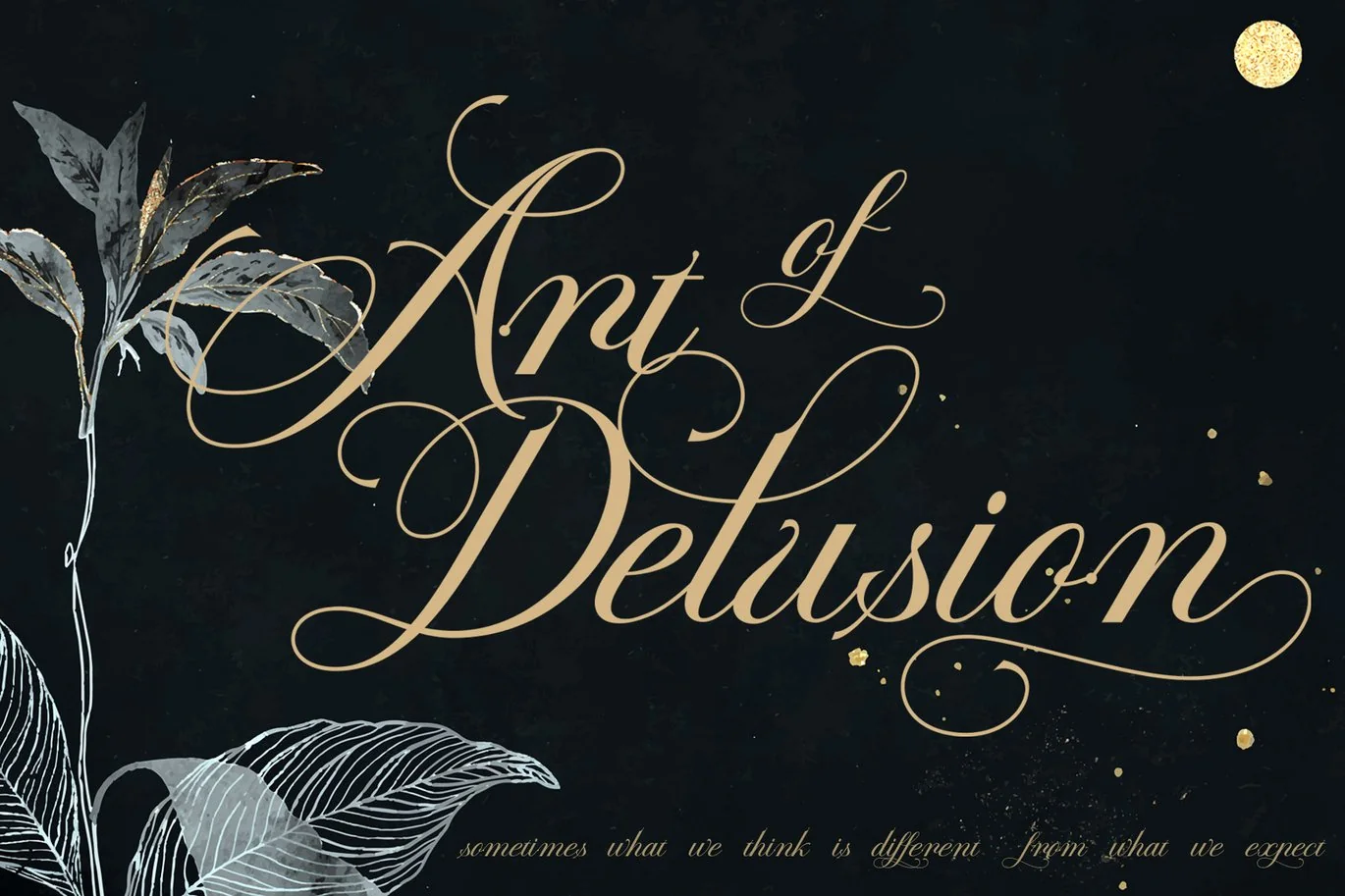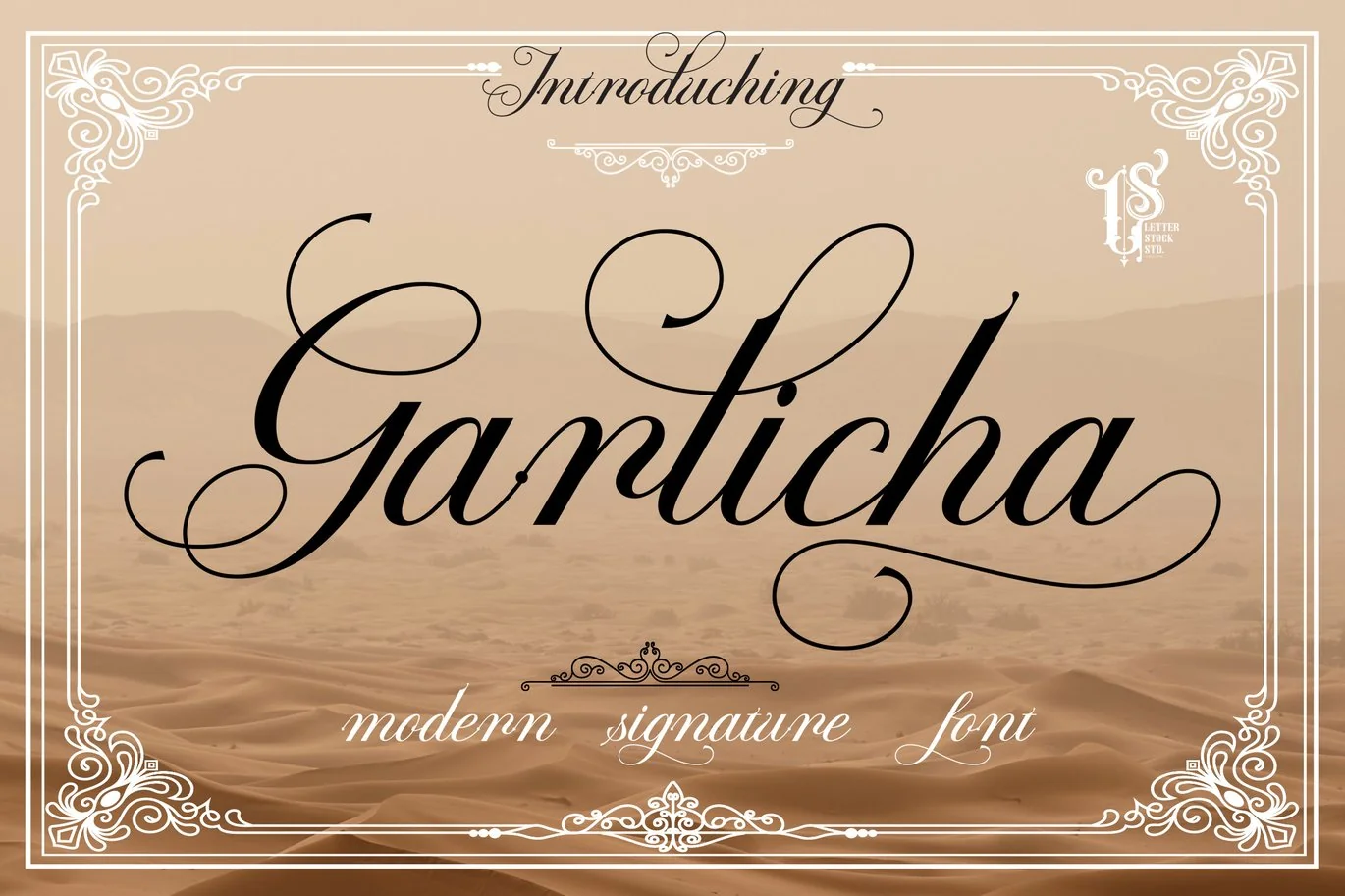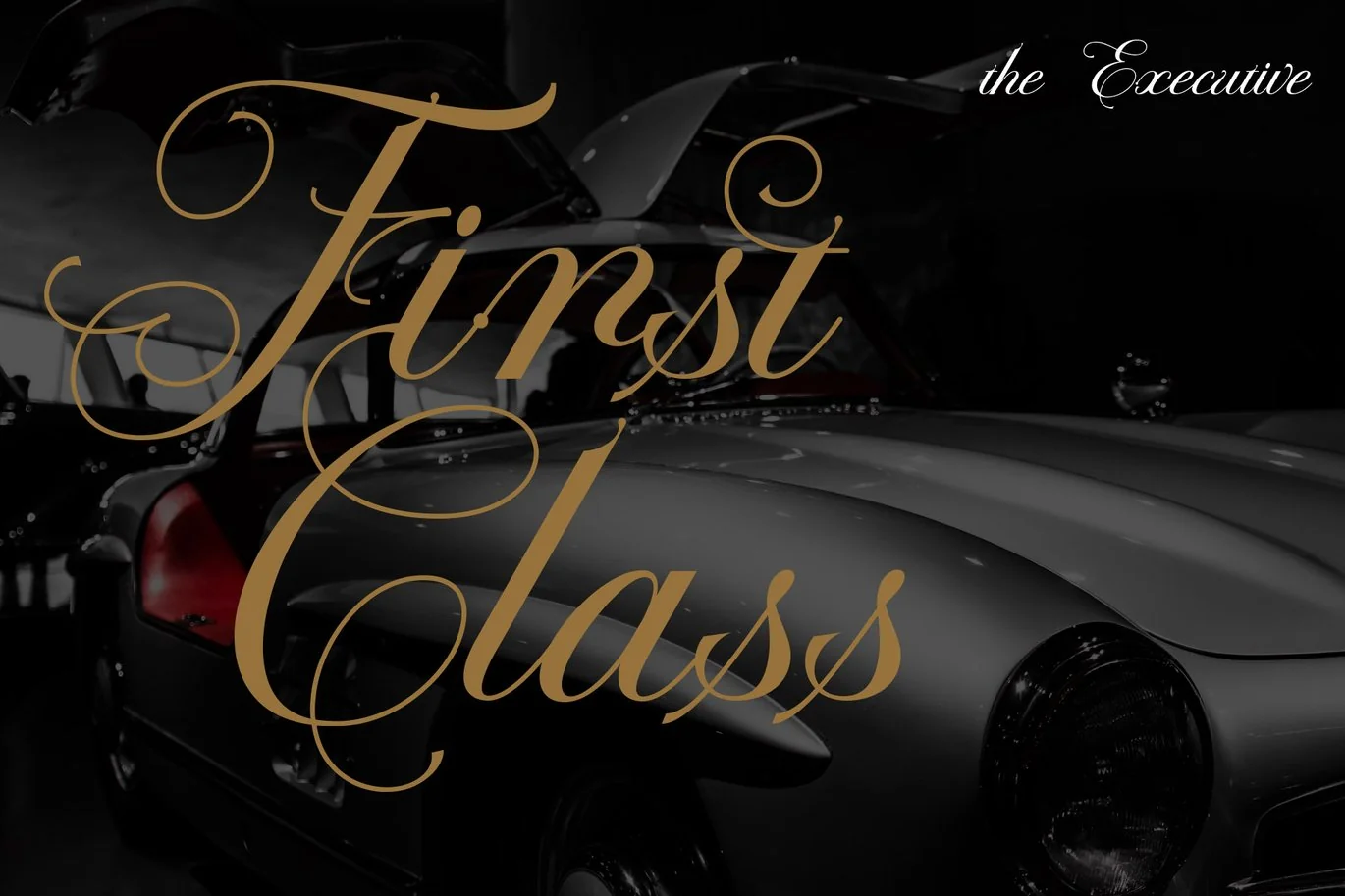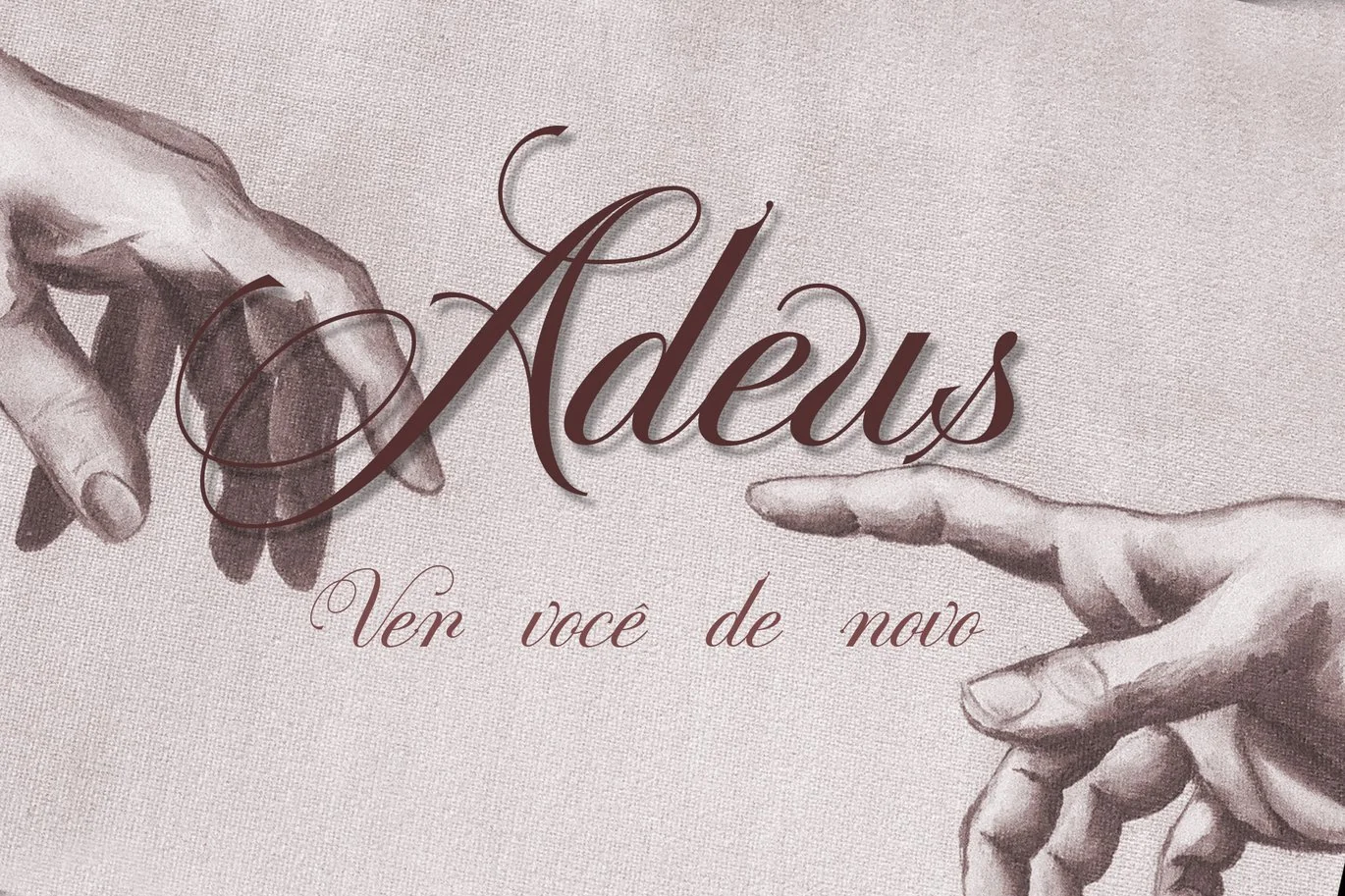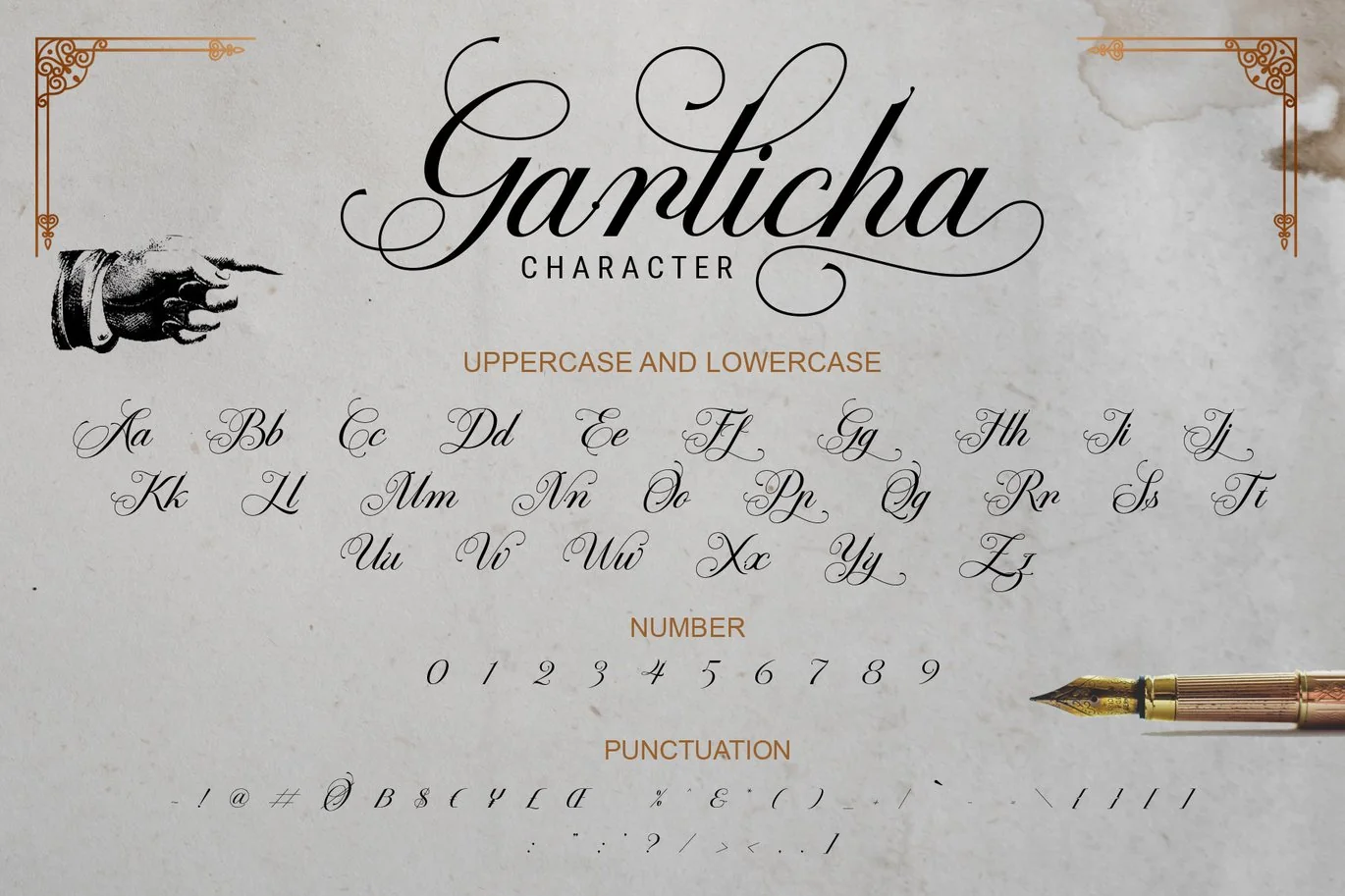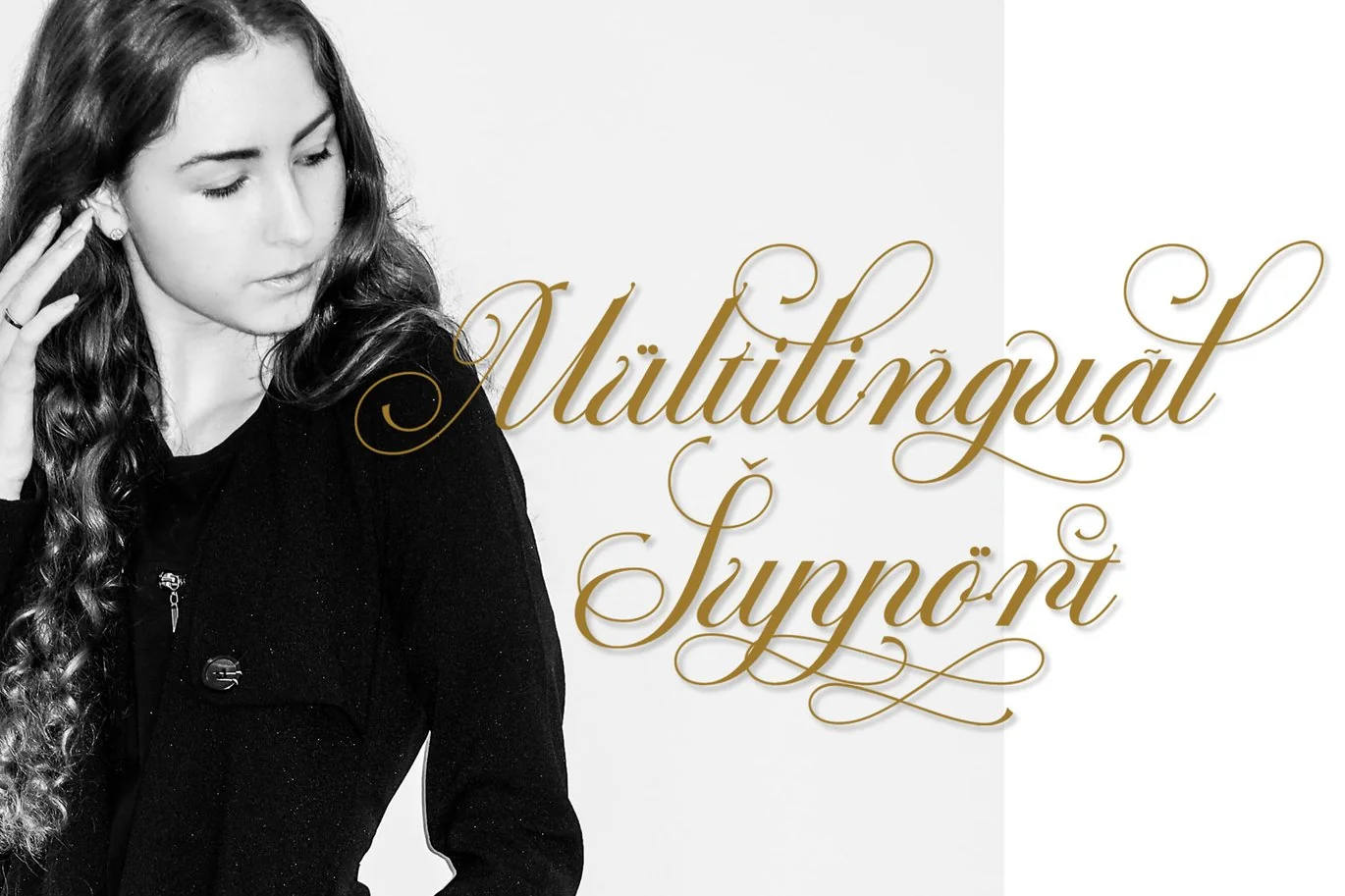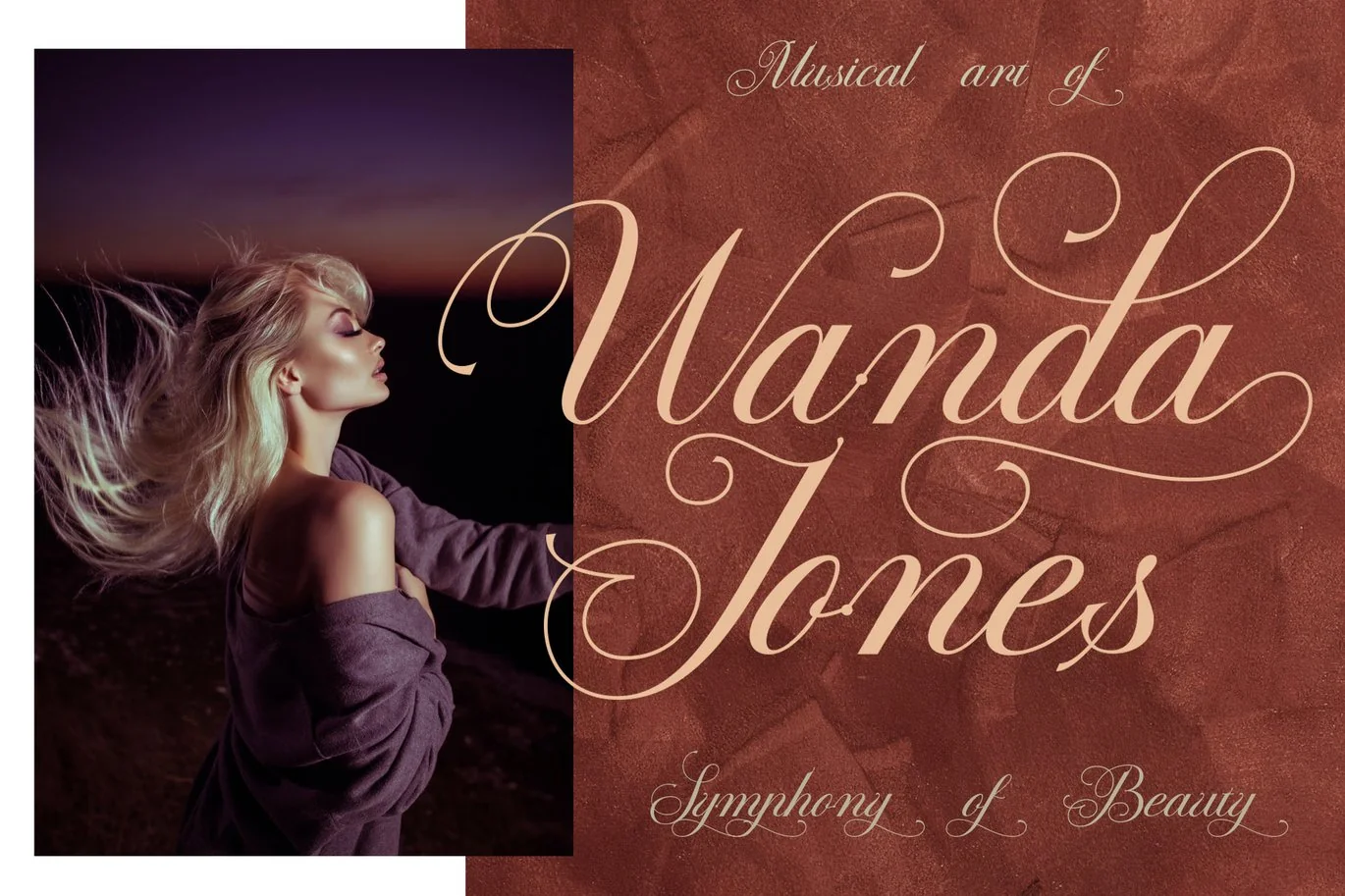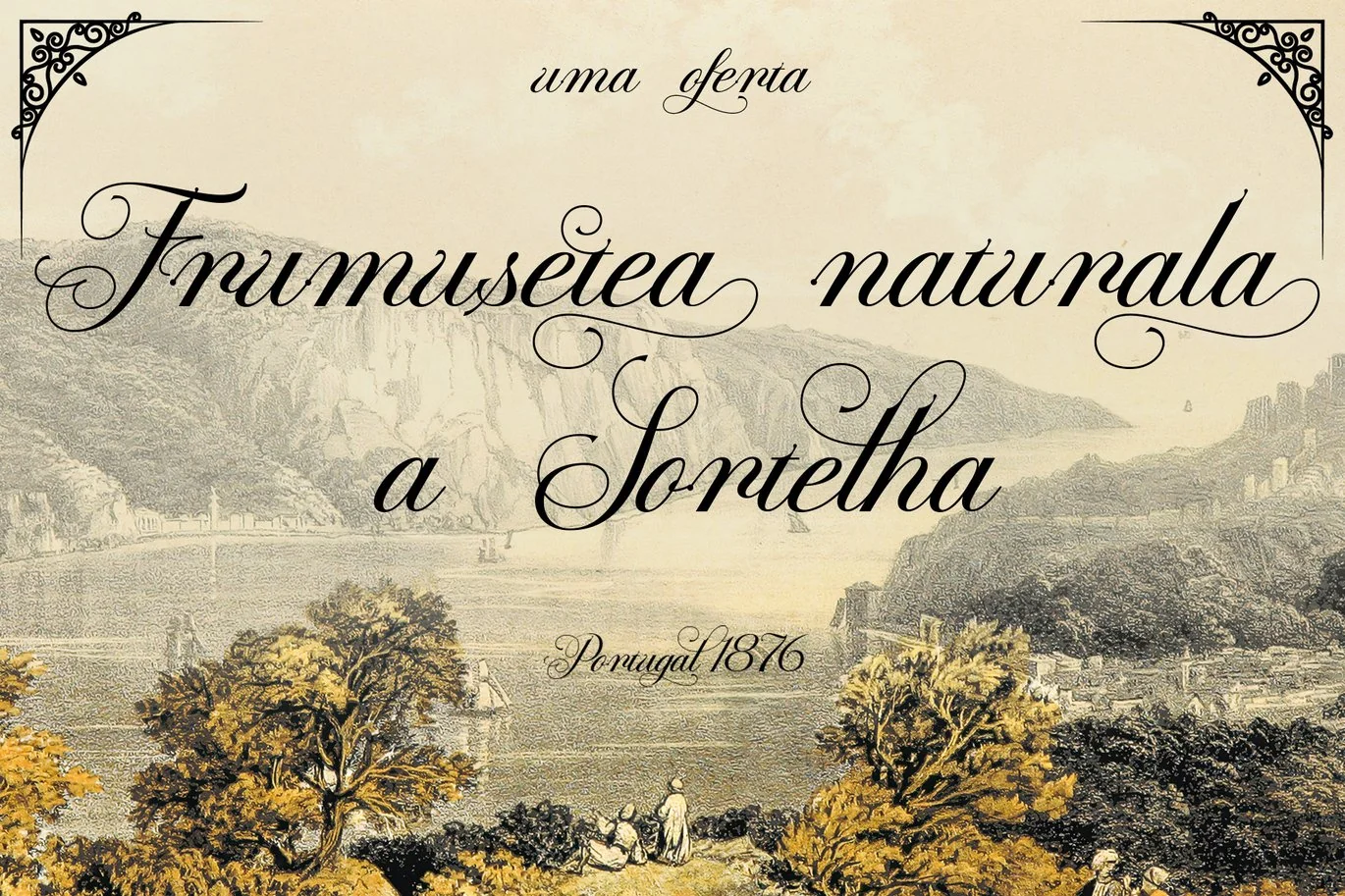
Garlicha – Calligraphy Script Font
Garlicha Font
This pair was inspired by elegant poster design that i saw on some coffee shop, It was crafted by hand specially to add natural handmade feeling in its brand identity than i make it clean with pentool.
Garlicha font has 220 character set included.
Garlicha font is very good looking in logo, labels, product packaging, invitations, advertising and others because of the calligraphy script uniqueness that Garlicha had.
• Multilingual support (Western European characters).
If you looking for a calligraphy script font for your design, this item is a great choice to make your design looks great, authentic and unique.